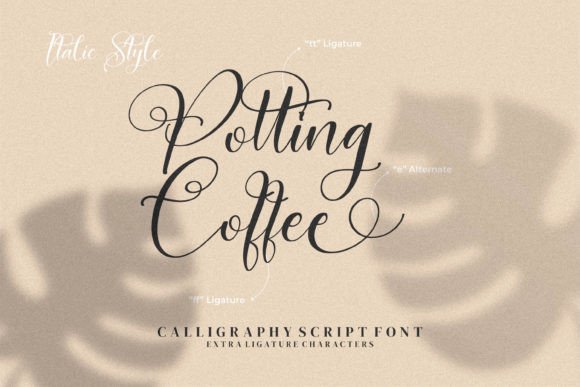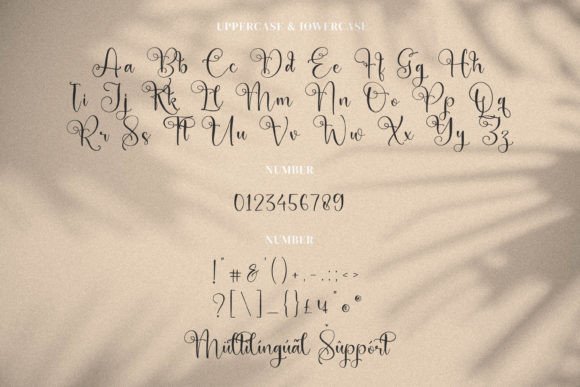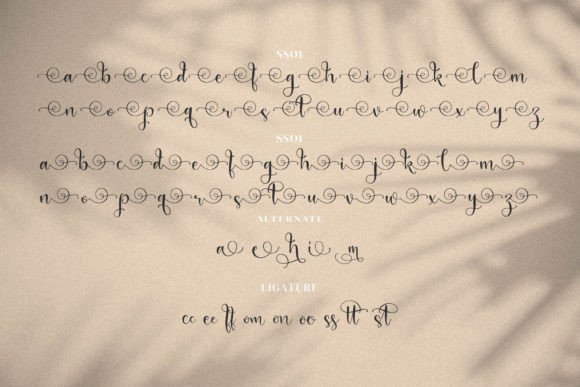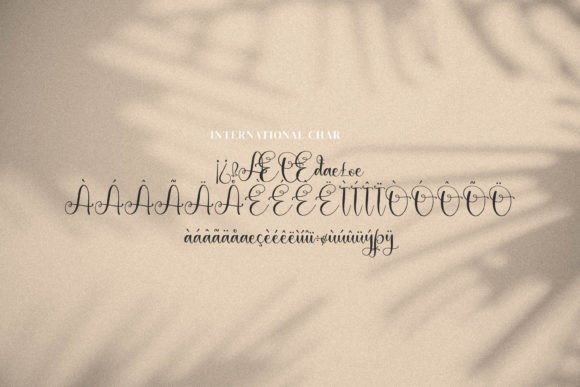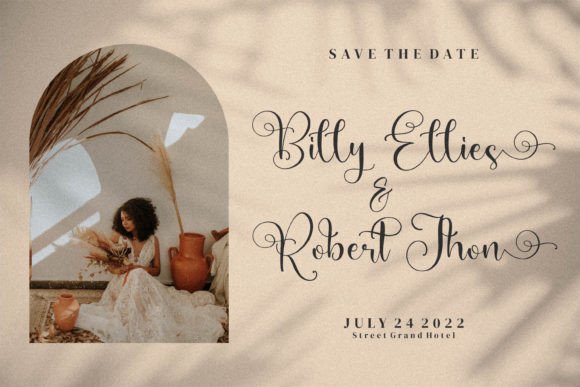
About Adriana Juliewis Font
Adriana Juliewis – Calligraphy Script Font, suitable for any projects such as logos, branding projects, homeware designs, product packaging, mugs, quotes, posters, shopping bags, t-shirts, book covers, name cards, invitation cards, greeting cards, labels, photography, watermark, special events, and all your other luxury projects that need a premium signature taste.This font is PUA encoded, which means you can access all of the glyphs and swashes with ease!